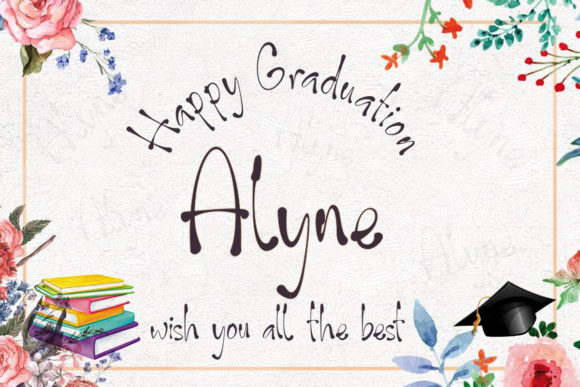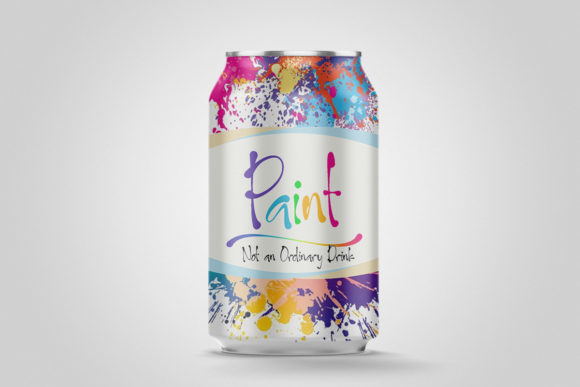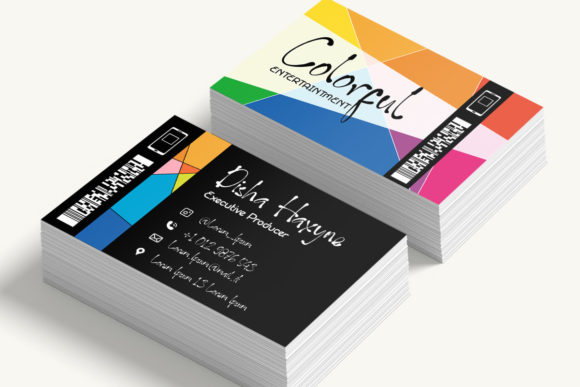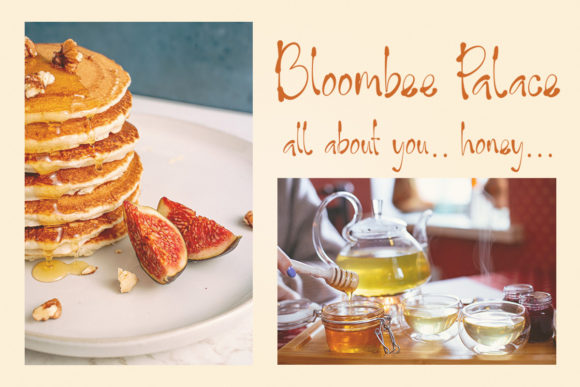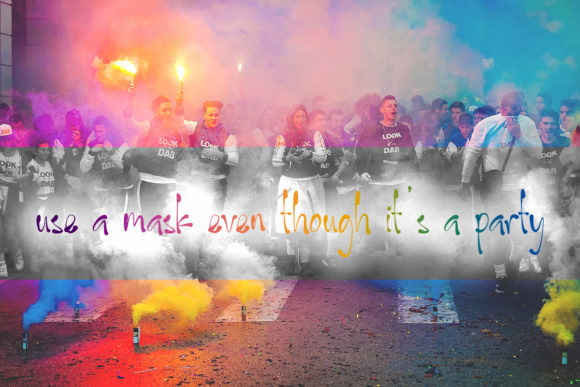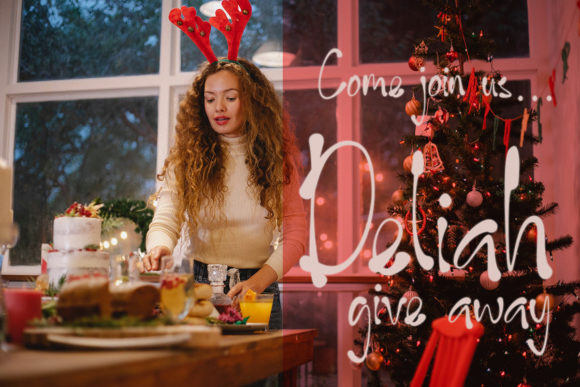
Drippy Font: Add a Whimsical Touch to Your Designs
Are you looking for a font that can add a touch of whimsy and romance to your designs? Look no further than Drippy Font! This thin, handwritten font is perfect for designers and crafters who want to create beautiful and eye-catching projects. In this article, we’ll take a closer look at Drippy Font, its features, and how you can use it to elevate your designs.
What is Drippy Font?
Drippy Font is a thin, whimsical, and cute handwritten font that’s perfect for a variety of design projects. Its gentle and flowing lines make it ideal for creating beautiful and elegant designs that will capture the attention of your audience. Whether you’re working on a logo, branding, packaging, or social media graphics, Drippy Font is sure to add a touch of magic to your projects.
Features of Drippy Font
• Thin and elegant lines: Drippy Font features thin and elegant lines that give it a delicate and refined look.
• Whimsical and cute: This font has a playful and whimsical feel that’s perfect for creating designs that are fun and youthful.
• Handwritten style: Drippy Font has a handwritten style that gives it a personal and human touch.
• Versatile: This font is versatile and can be used for a variety of design projects, from logos and branding to packaging and social media graphics.
How to Use Drippy Font in Your Designs
Drippy Font is easy to use and can be incorporated into your designs in a variety of ways. Here are a few ideas to get you started:
• Logos and branding: Use Drippy Font to create a beautiful and elegant logo that will help you establish a strong brand identity.
• Packaging design: Add a touch of whimsy to your packaging designs with Drippy Font. It’s perfect for creating labels, tags, and other packaging materials.
• Social media graphics: Use Drippy Font to create eye-catching social media graphics that will help you stand out from the crowd.
• Stationery and invitations: Drippy Font is perfect for creating beautiful stationery and invitations that will add a touch of elegance and sophistication to your correspondence.
Tips for Using Drippy Font Effectively
Here are a few tips for using Drippy Font effectively in your designs:
• Keep it simple: Drippy Font is a delicate font, so it’s best to keep your design simple and uncluttered.
• Experiment with colors: Drippy Font looks beautiful in a variety of colors, so don’t be afraid to experiment and find the perfect color scheme for your design.
• Use it with contrasting fonts: Drippy Font pairs well with bold and contrasting fonts, so try using it with a bold font to create visual interest.
Drippy Font is a beautiful and versatile font that’s perfect for designers and crafters who want to add a touch of whimsy and romance to their designs. With its thin and elegant lines, whimsical and cute style, and handwritten feel, Drippy Font is sure to elevate your designs and help you create beautiful and eye-catching projects. So why not give it a try and see how it can transform your designs?
• What is Drippy Font?: Drippy Font is a thin, whimsical, and cute handwritten font that’s perfect for a variety of design projects.